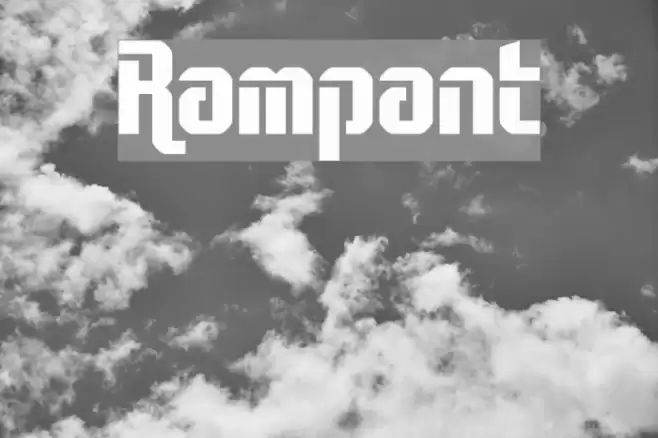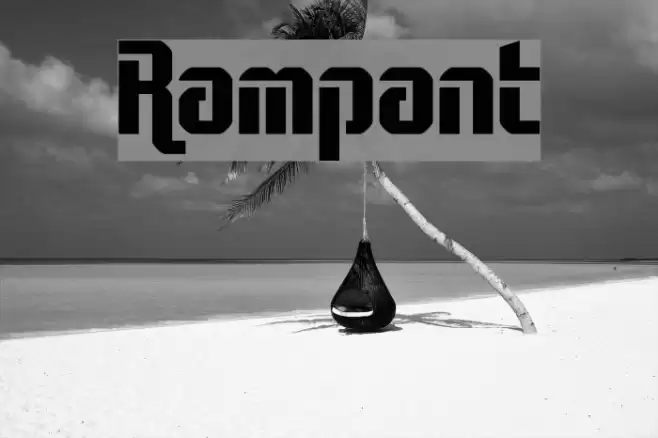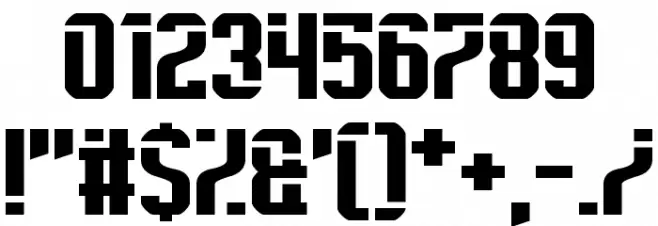
Rampant Font
Rampant Description
This font features a bold and geometric design with a strong presence. The characters are constructed with thick, block-like strokes that give it a robust and industrial feel. The uppercase and lowercase letters maintain a consistent width, creating a uniform appearance across the typeface. The numbers and special characters are designed to match the boldness of the letters, ensuring cohesion throughout. The angular cuts and sharp edges add a modern touch, making it suitable for impactful and attention-grabbing designs.
A bold, geometric font with a strong, industrial style from Uncategorized fonts.
- Proposed Projects: Ideal for branding, posters, headlines, and any design that requires a bold statement.